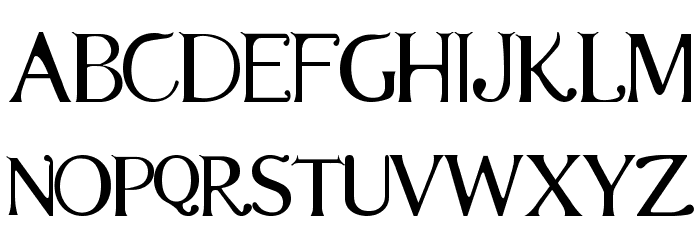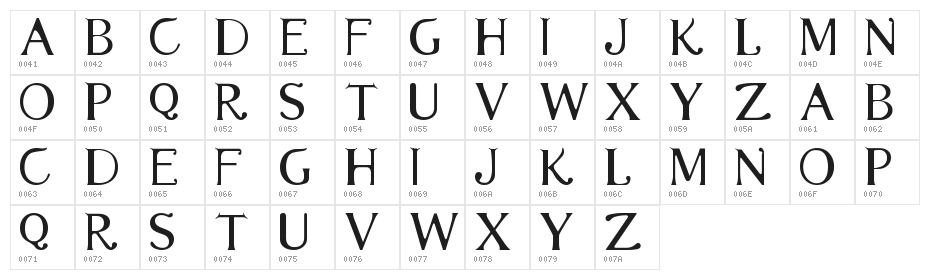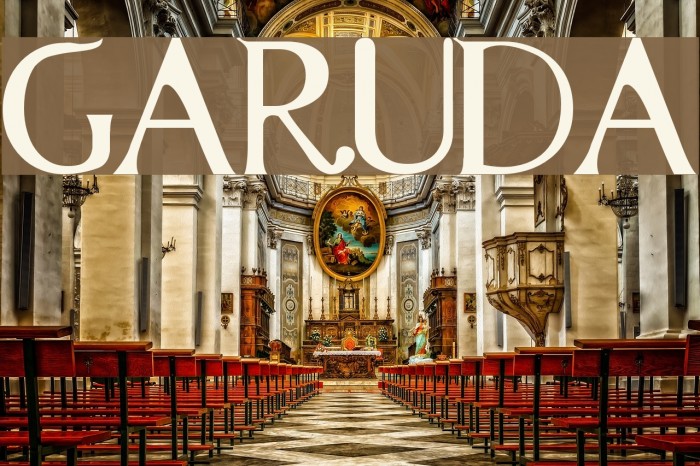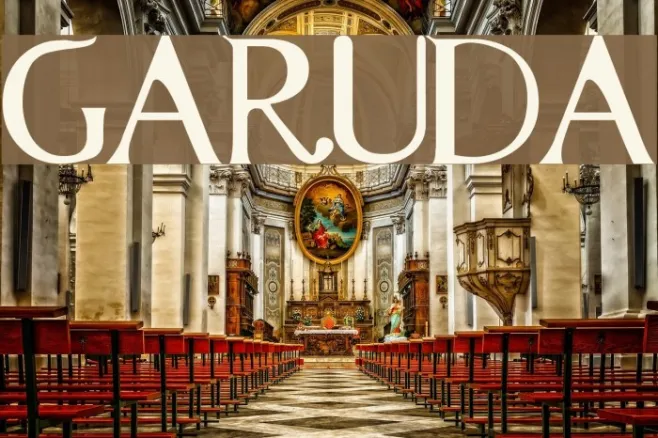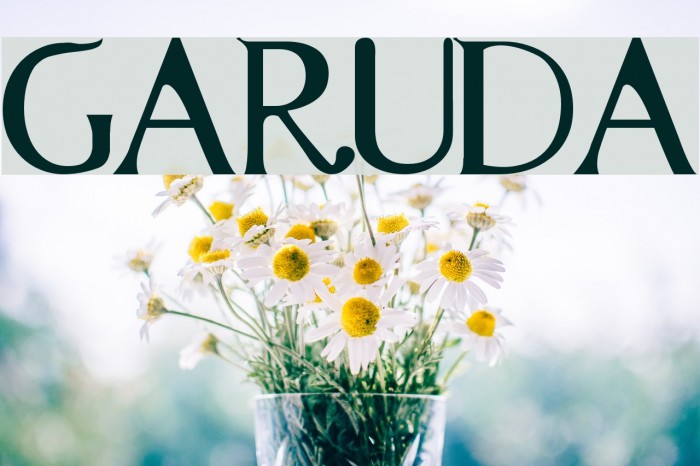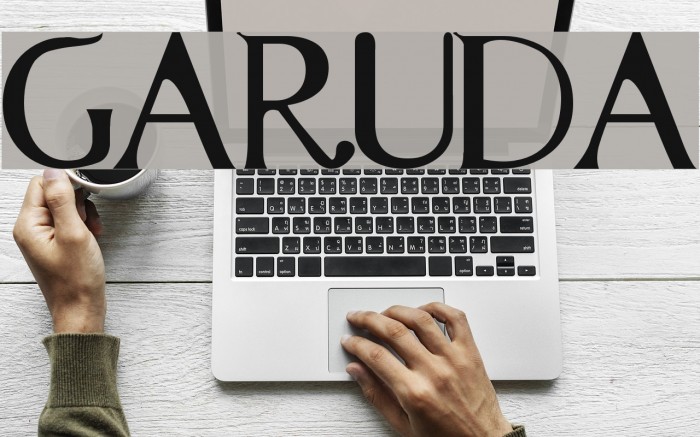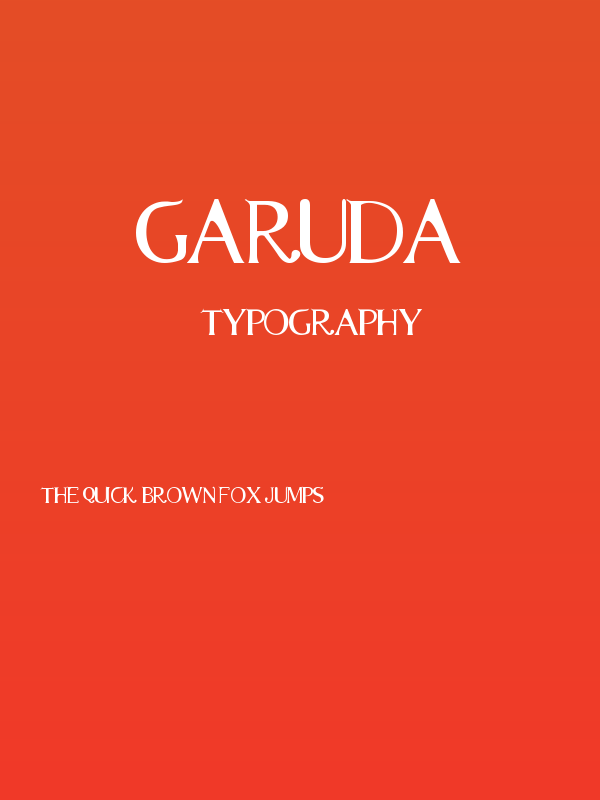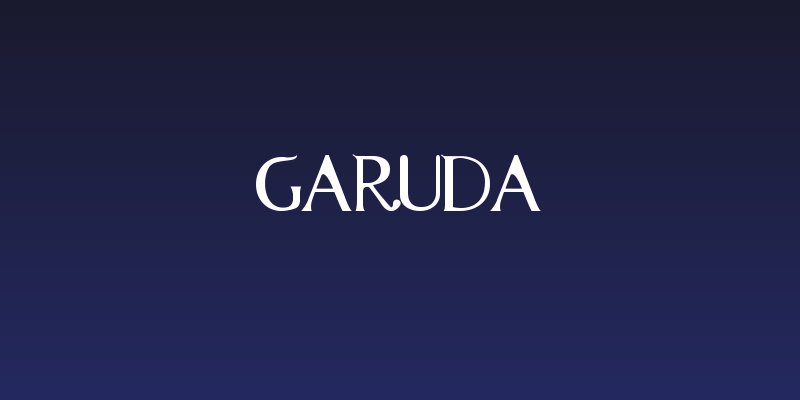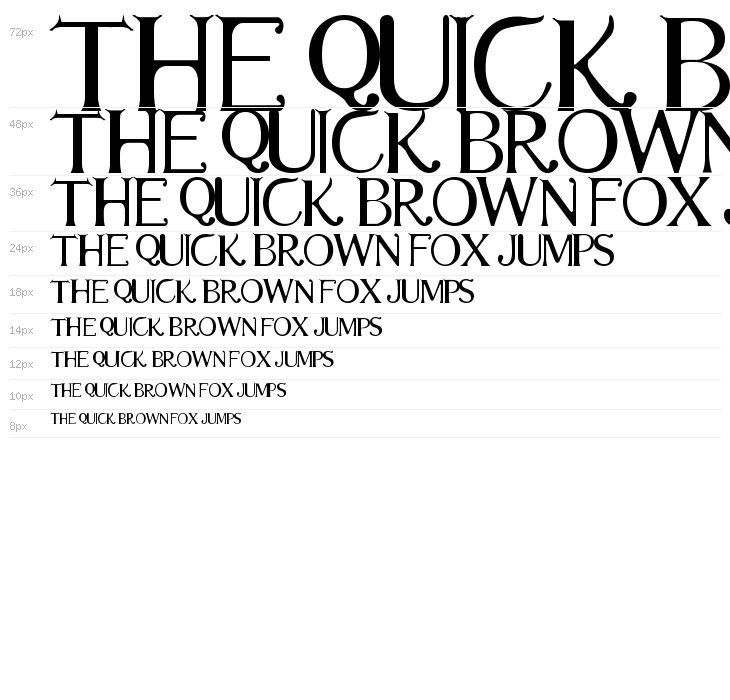
GARUDA Font
GARUDA Description
This font features a unique blend of traditional and modern elements, characterized by its elegant and slightly curved serifs. The uppercase letters exhibit a distinct flair, with subtle decorative elements that add a touch of sophistication. The overall design is balanced, with consistent stroke widths that provide a harmonious appearance. The font's style is versatile, making it suitable for a variety of applications, from formal invitations to branding materials. Its classic yet contemporary look ensures it stands out while maintaining readability.
| Proposed Projects | Ideal for wedding invitations, luxury branding, editorial design, and high-end product packaging. |